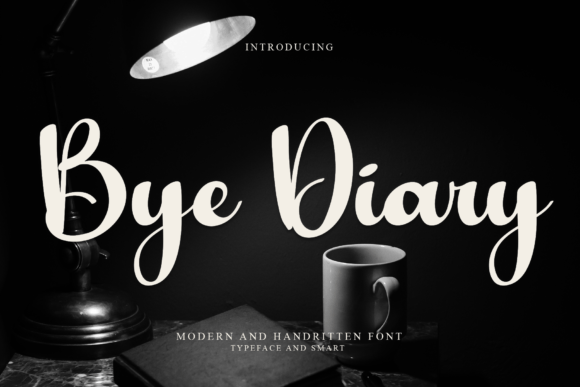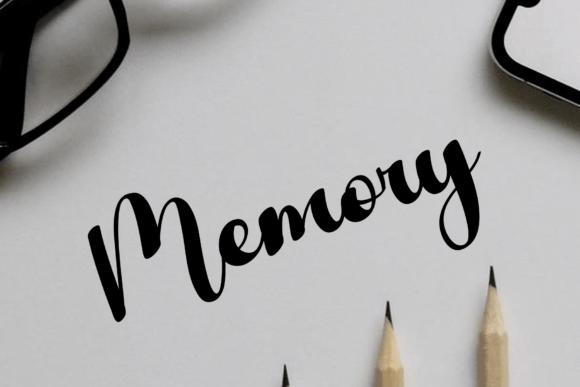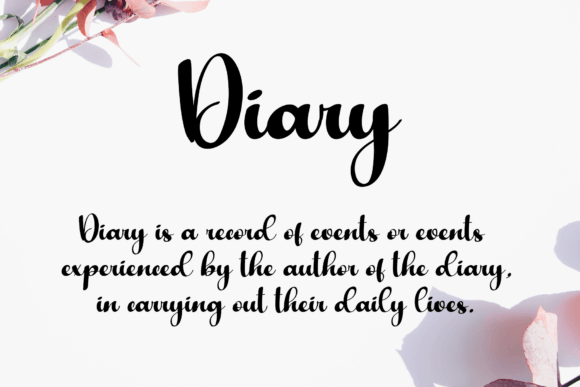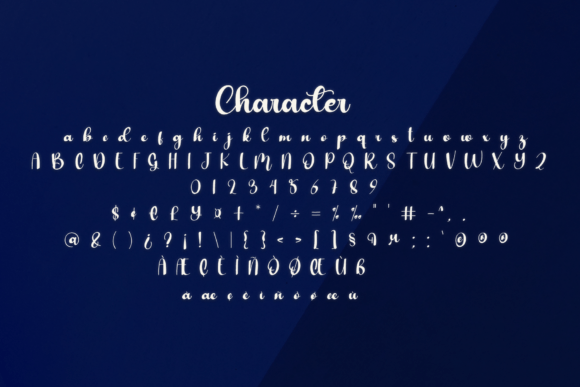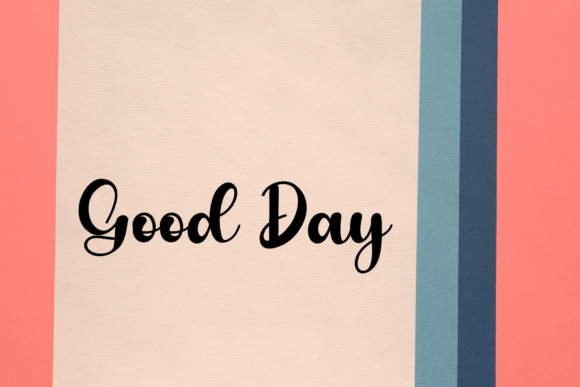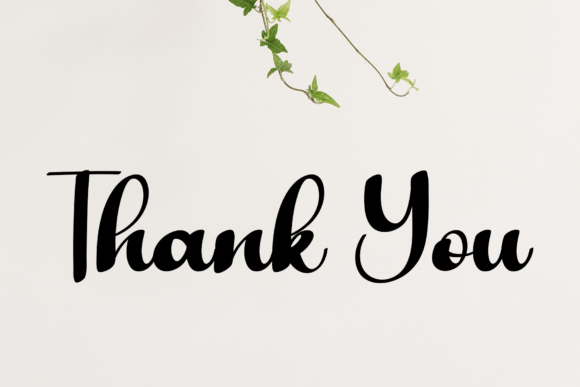
Bye Diary Font
About Bye Diary Font
“Bye Diary” is a distinctive round-lettered handwritten font that has been meticulously crafted to achieve the desired results. This unique typeface offers versatility, making it suitable for a range of applications, including writing titles, invitations, letters, and various other types of creative products.
The round-lettered design of Bye Diary contributes to its uniqueness, providing a playful and engaging quality to your text. This font is well-suited for creating eye-catching titles that stand out, designing invitations with a personal touch, or composing letters that convey a sense of individuality and charm.
The careful craftsmanship behind Bye Diary ensures that it delivers the intended aesthetic, making it a reliable choice for achieving the desired results in your design projects. The rounded letterforms contribute to a friendly and approachable vibe, making this font adaptable to different contexts and design purposes.
In summary, Bye Diary is not just a font; it’s a thoughtfully crafted tool that brings a unique and handwritten touch to your creative projects. Whether you’re working on titles, invitations, or other types of content, let Bye Diary be the distinctive handwritten font that adds character and personality to your designs.